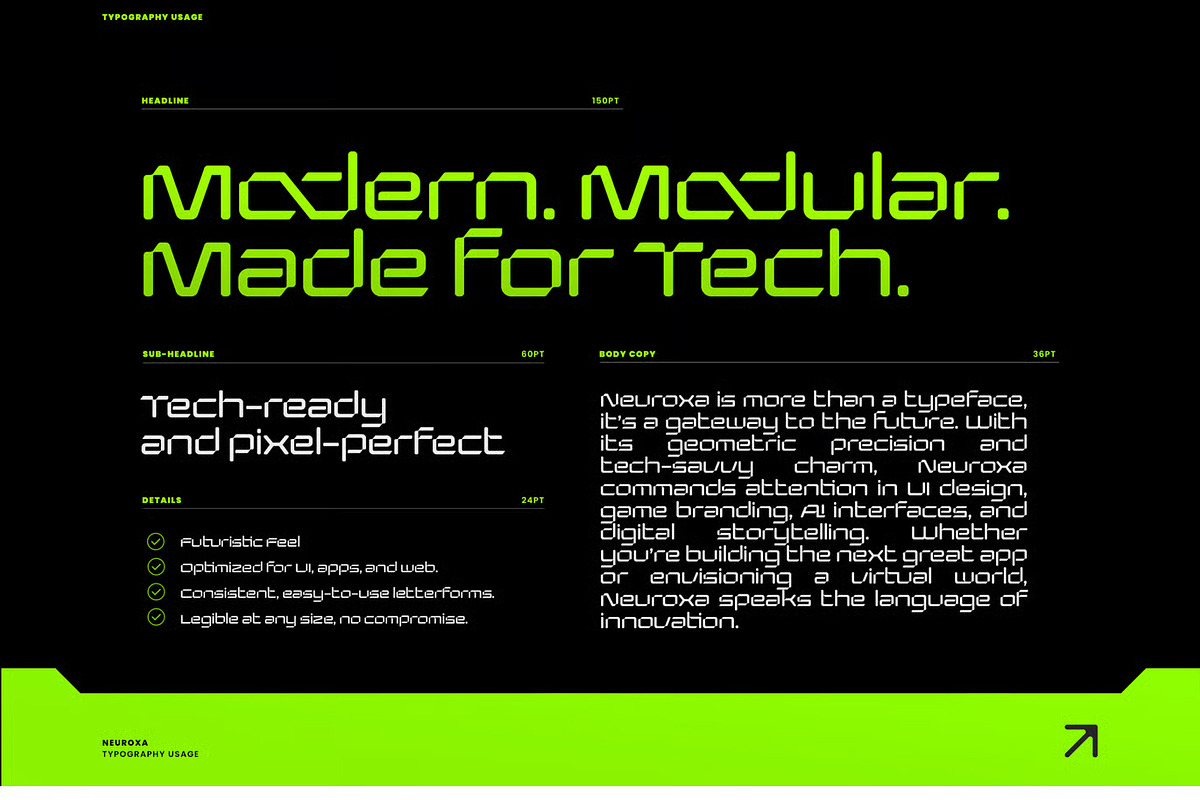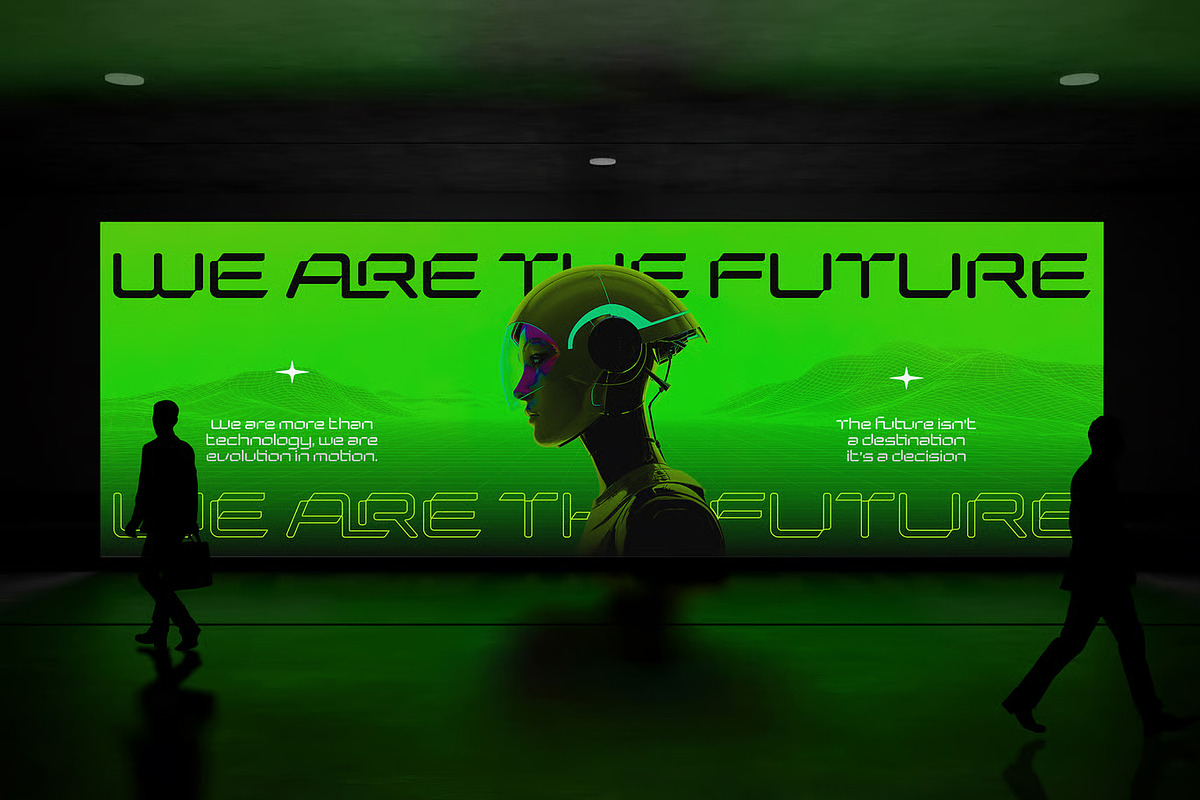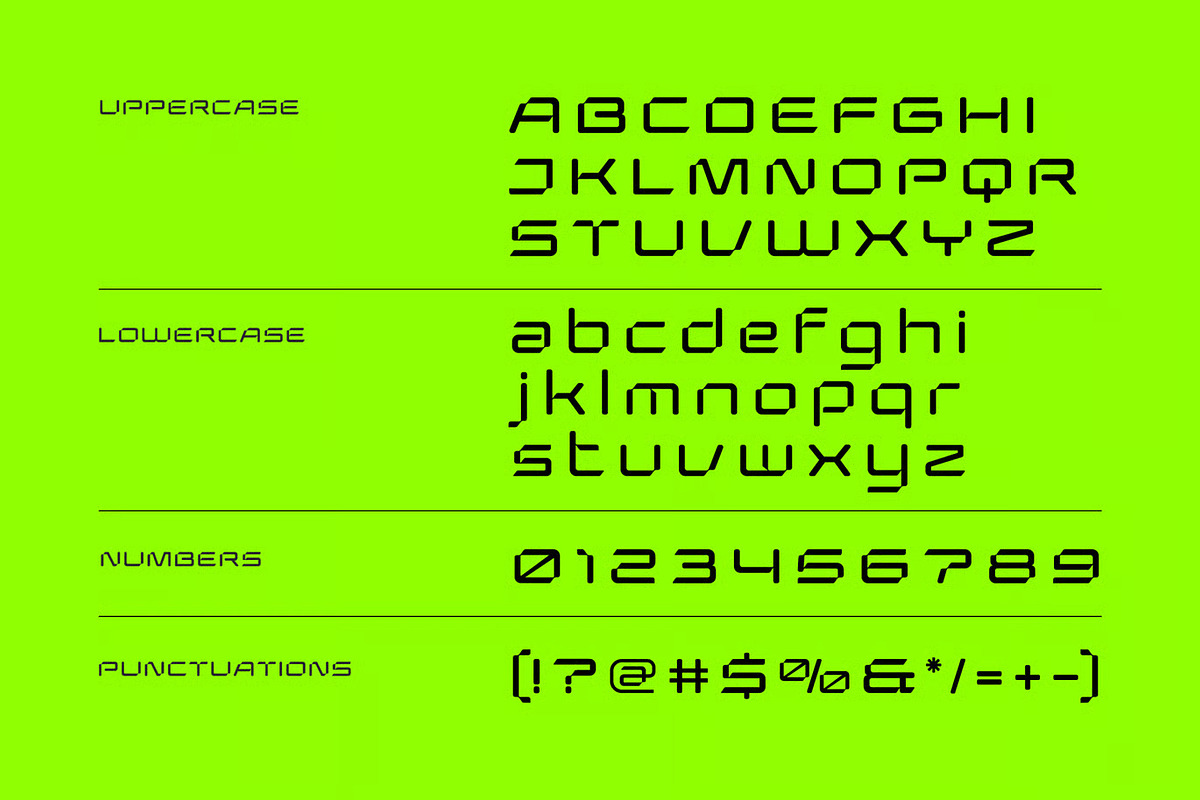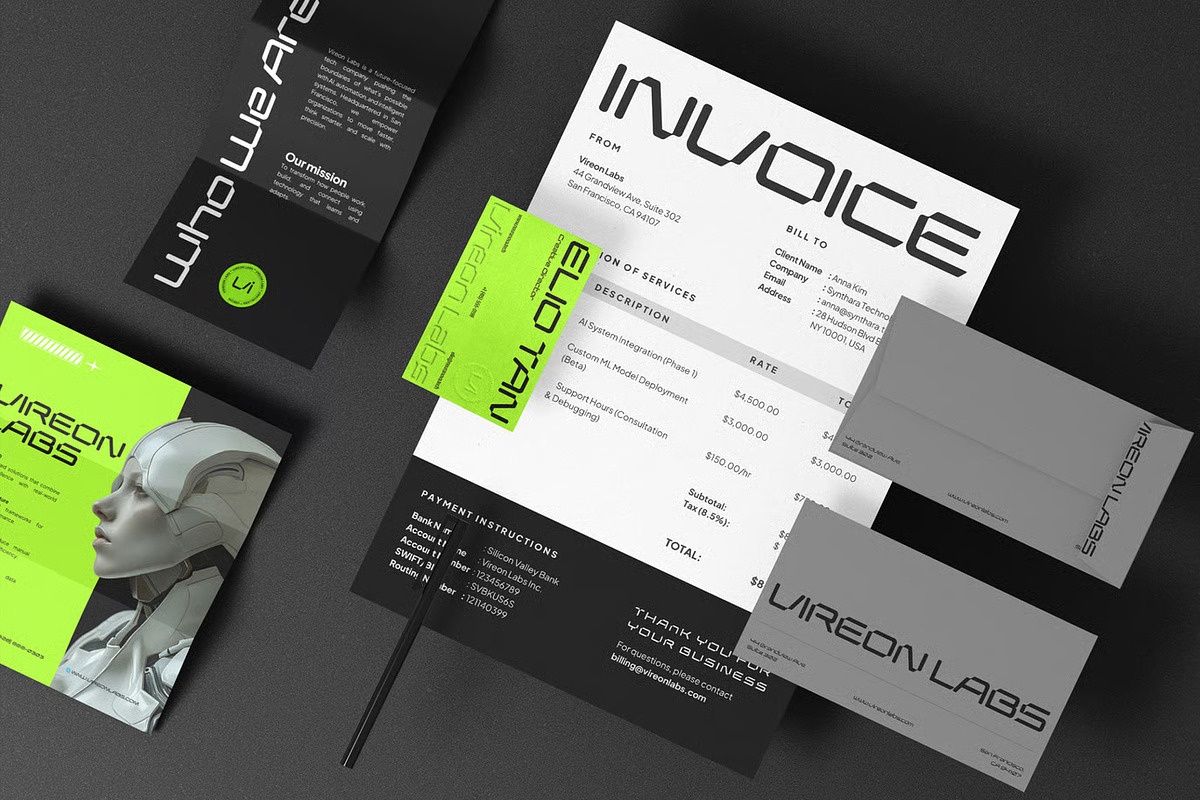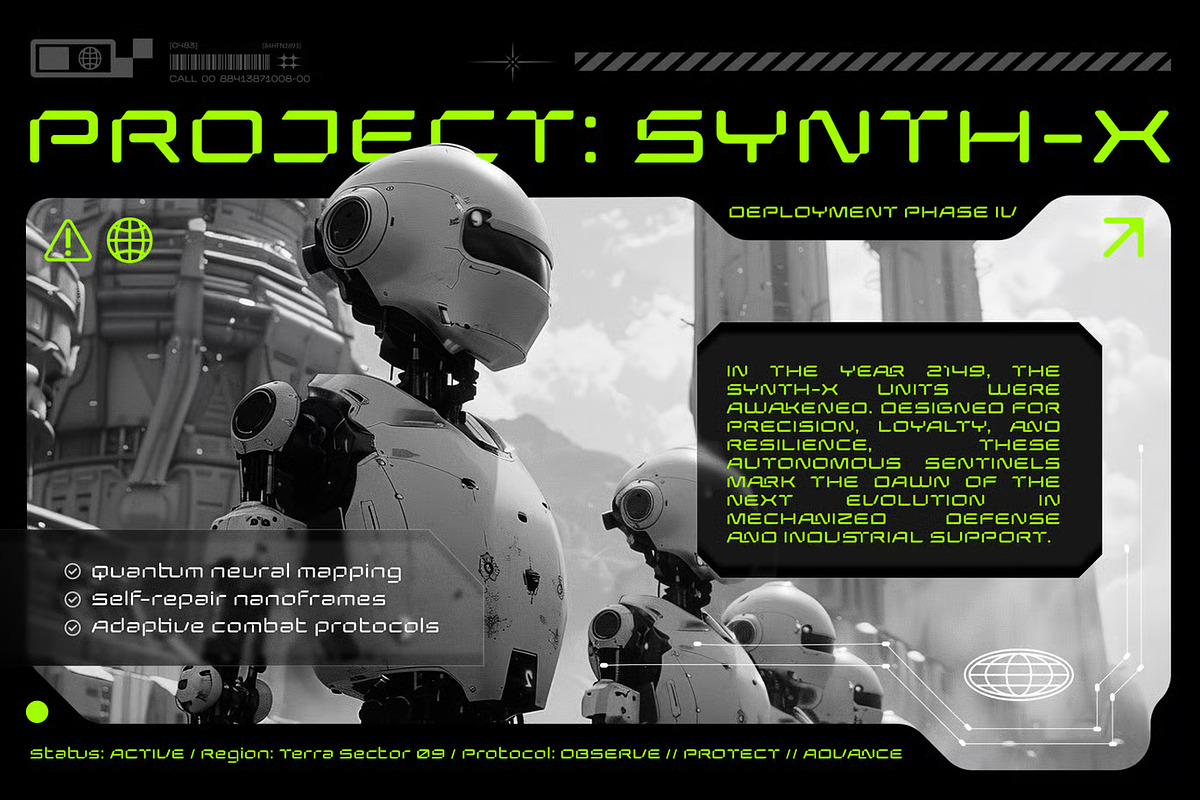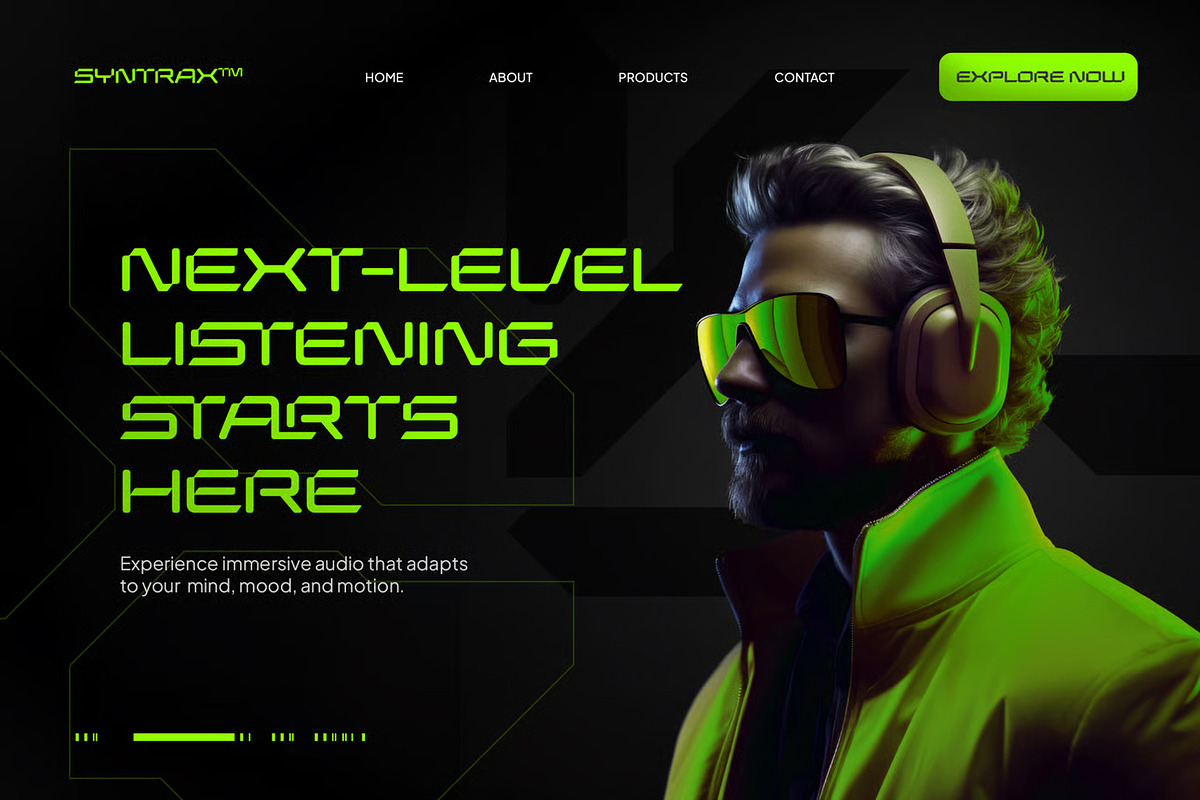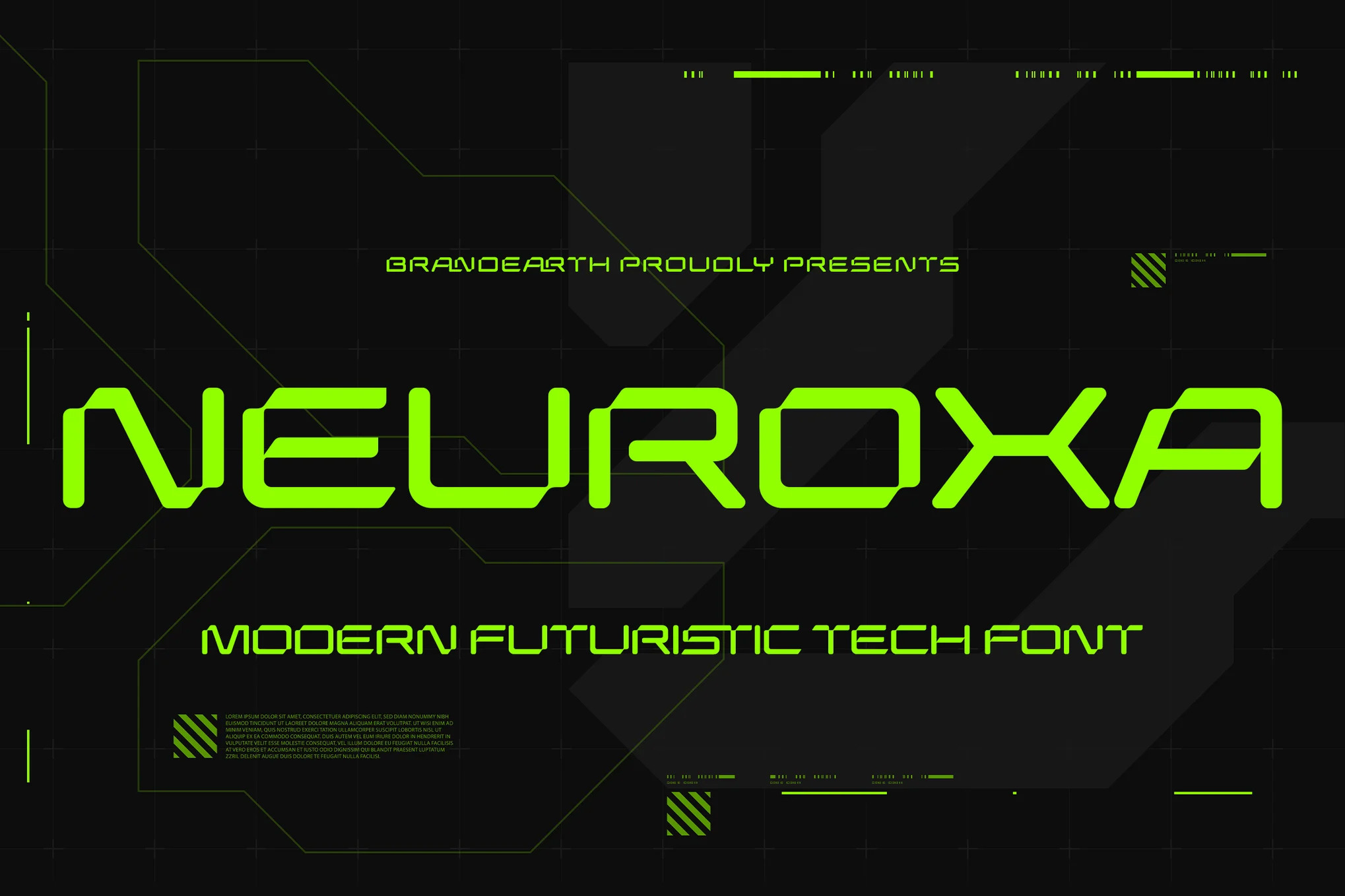
Neuroxa - Modern Futuristic Font
Neuroxa is a modern futuristic tech font designed with a unique geometric construction and a sci-fi aesthetic. Featuring sharp angles, minimalistic curves, and a digital-inspired rhythm, this font is perfect for high-tech branding, sci-fi movie titles, cyberpunk posters, gaming interfaces, space-themed projects, or any design that demands a sleek, tech-forward typeface. Its uppercase and lowercase styles deliver a consistent futuristic feel that's ideal for both display and UI/UX contexts.
The letterforms in Neuroxa are carefully crafted with sharp angular cuts, minimalistic curves, and a rigid, digital-inspired rhythm that gives the typeface a sleek and futuristic appearance. It features a sci-fi precision that is perfect for gaming interfaces, cyberpunk visuals, and high-tech branding.
With its mix of geometric structure and digital energy, Neuroxa bridges the gap between minimalism and futuristic power. It provides a consistent, tech-forward identity while remaining versatile, making it ideal for space-themed branding, UI/UX design, and sci-fi movie titles.
Main Features
Ligatures & Alternate
Numeral & Punctuations
Suitable For: sci-fi posters, cyberpunk interfaces, game titles, AI startup branding, space technology branding, modern tech websites, digital dashboards, robotics logos, UI design, hacking-themed visuals, technology blog headers, gaming apparel, electronic music covers, futuristic YouTube thumbnails, coding bootcamp presentations, crypto branding, data analytics slides, e-sports intros, motion graphic overlays, and digital identity systems.